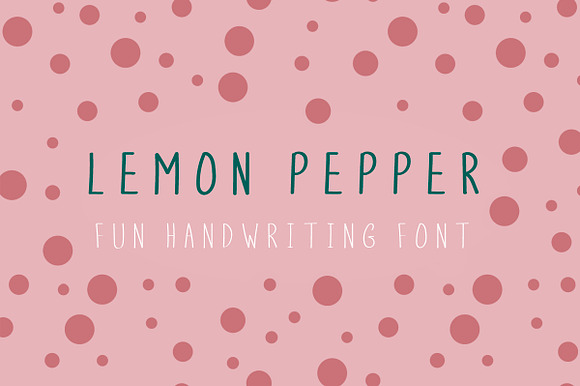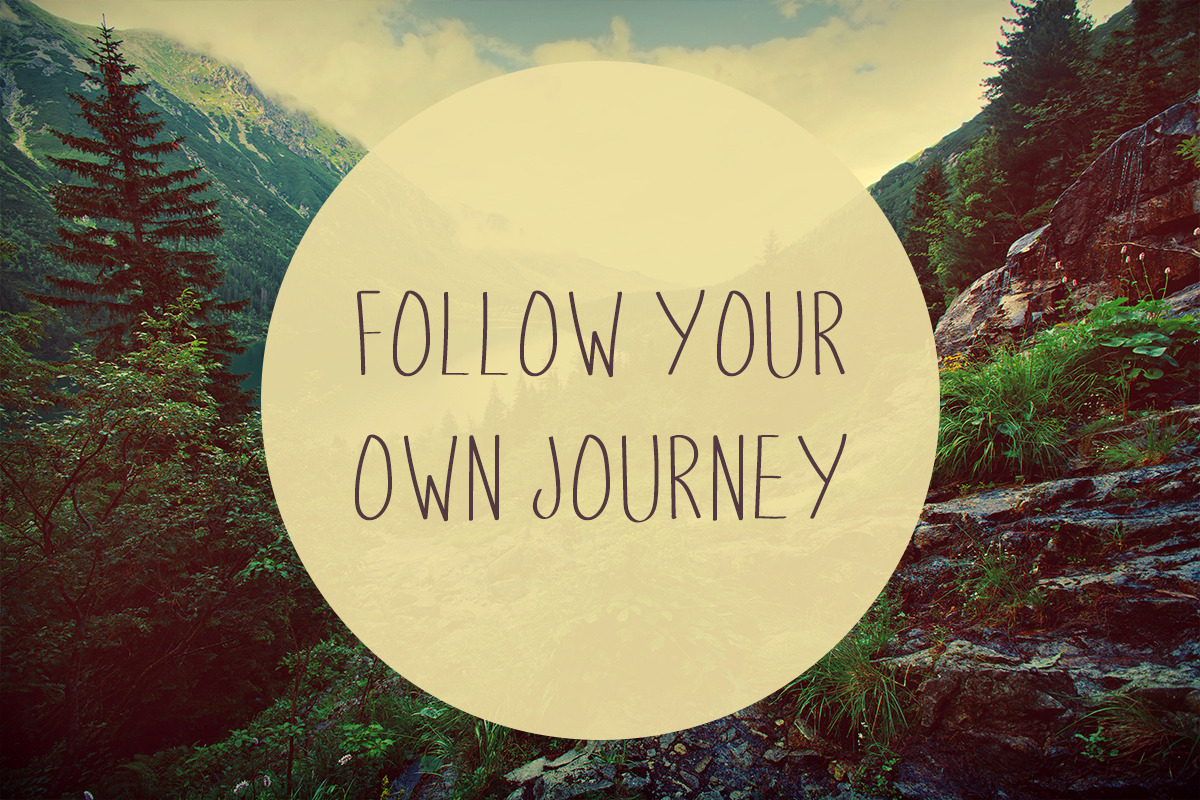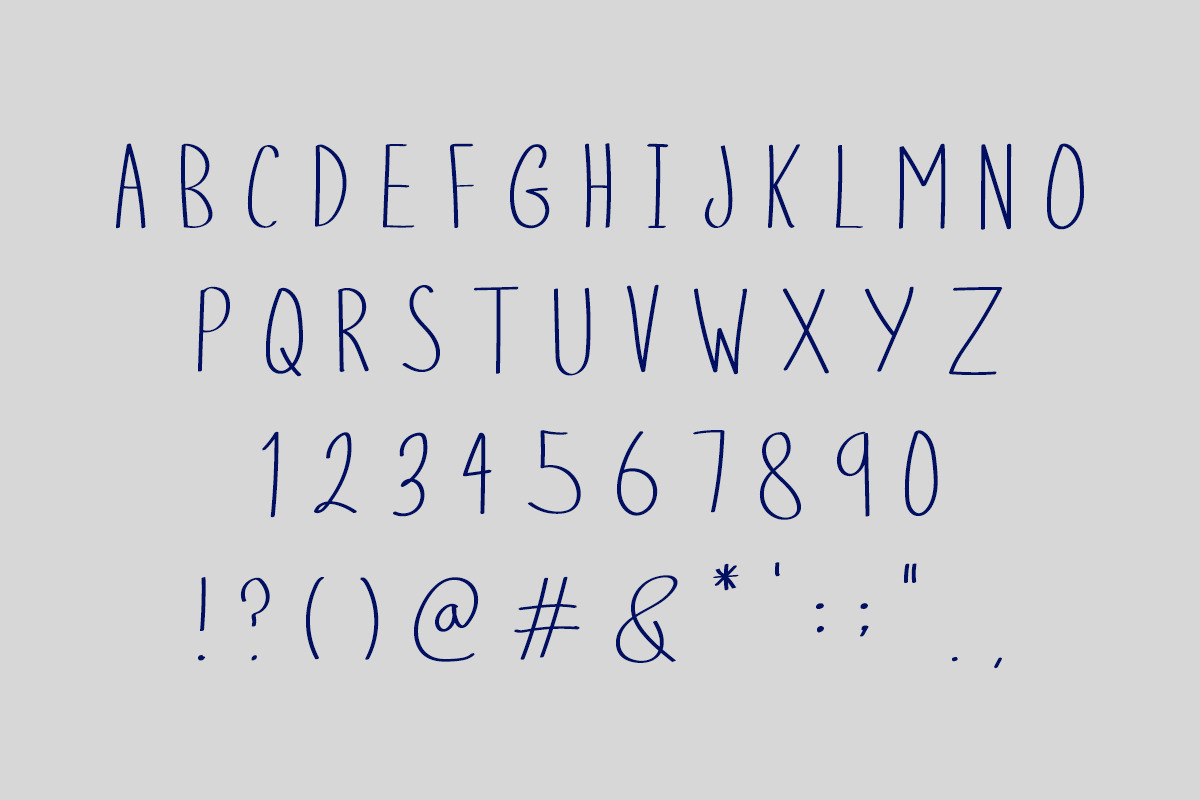
Lemon Pepper Handwritten Font
Lemon Pepper is a beautiful script Handwritten Font which will take your projects to the next level.
The script font has a beautifully simple design that is fun and playful, which makes it perfect for a wide range of projects.
Lemon Pepper Handwritten Font by Kohl + Cole fits naturally into Branding, posters, packaging, typography.